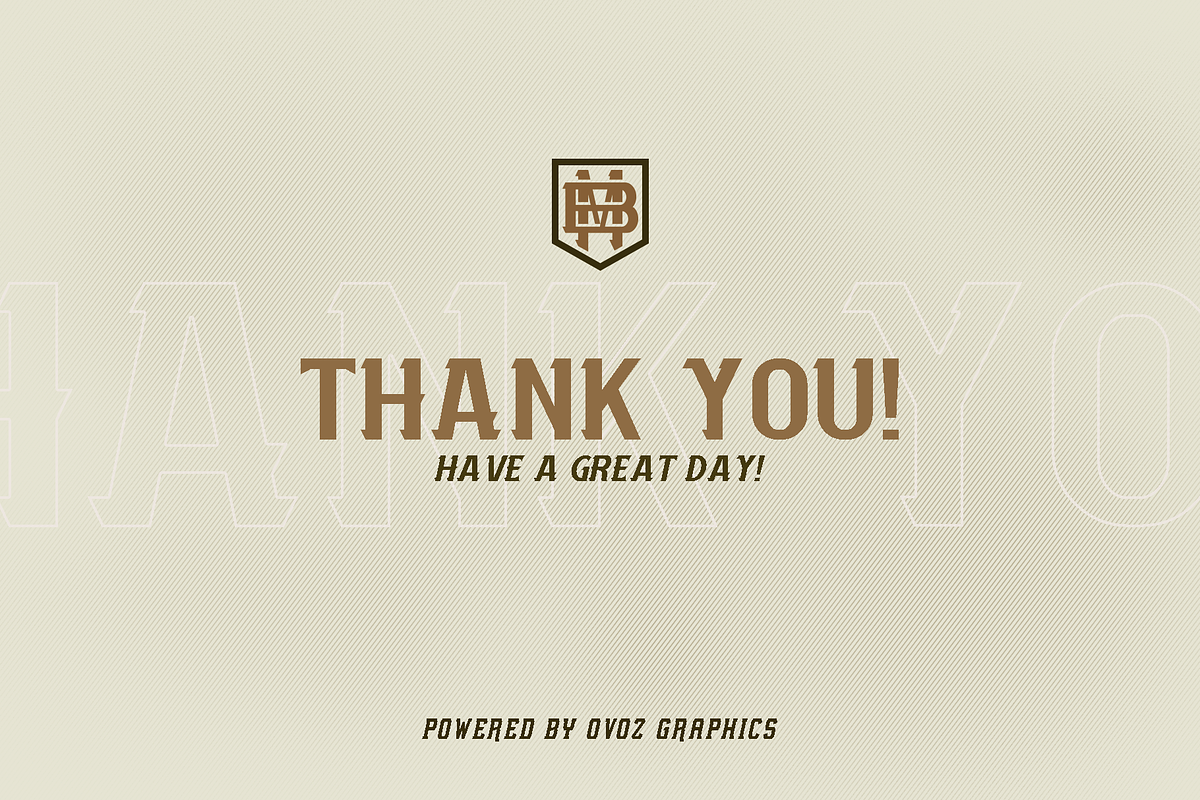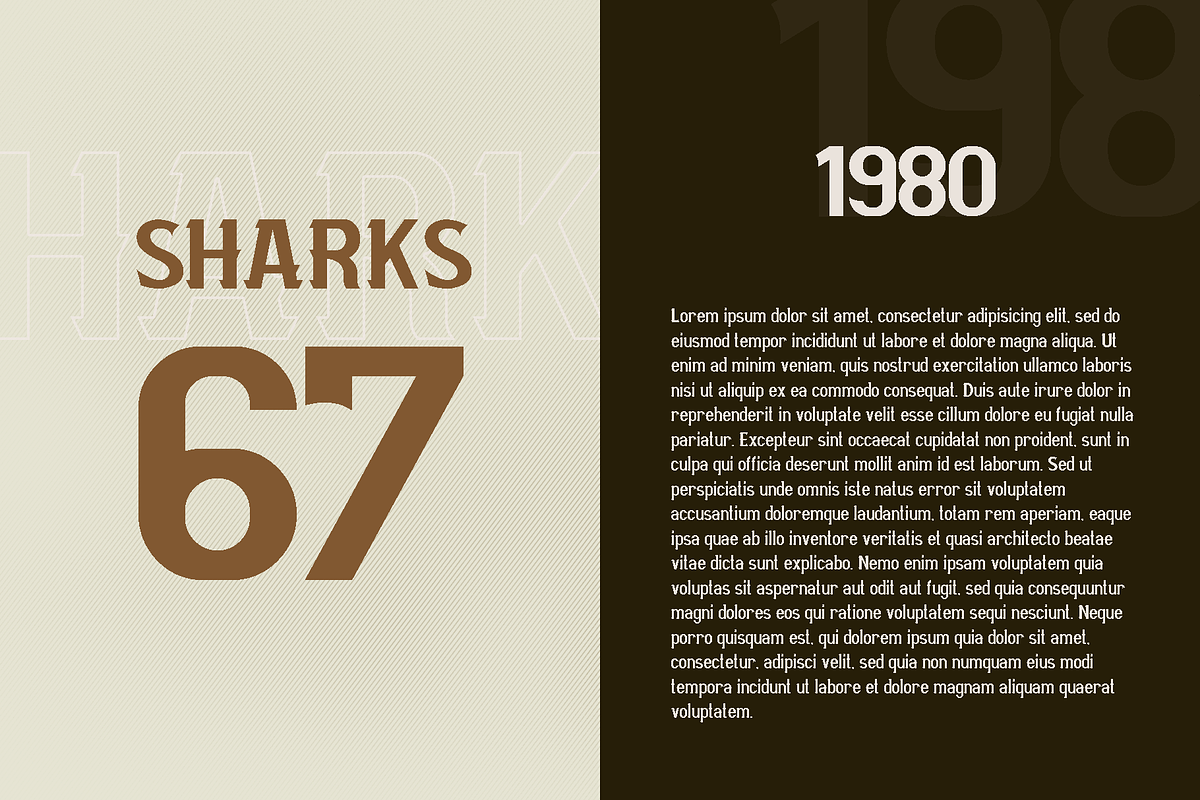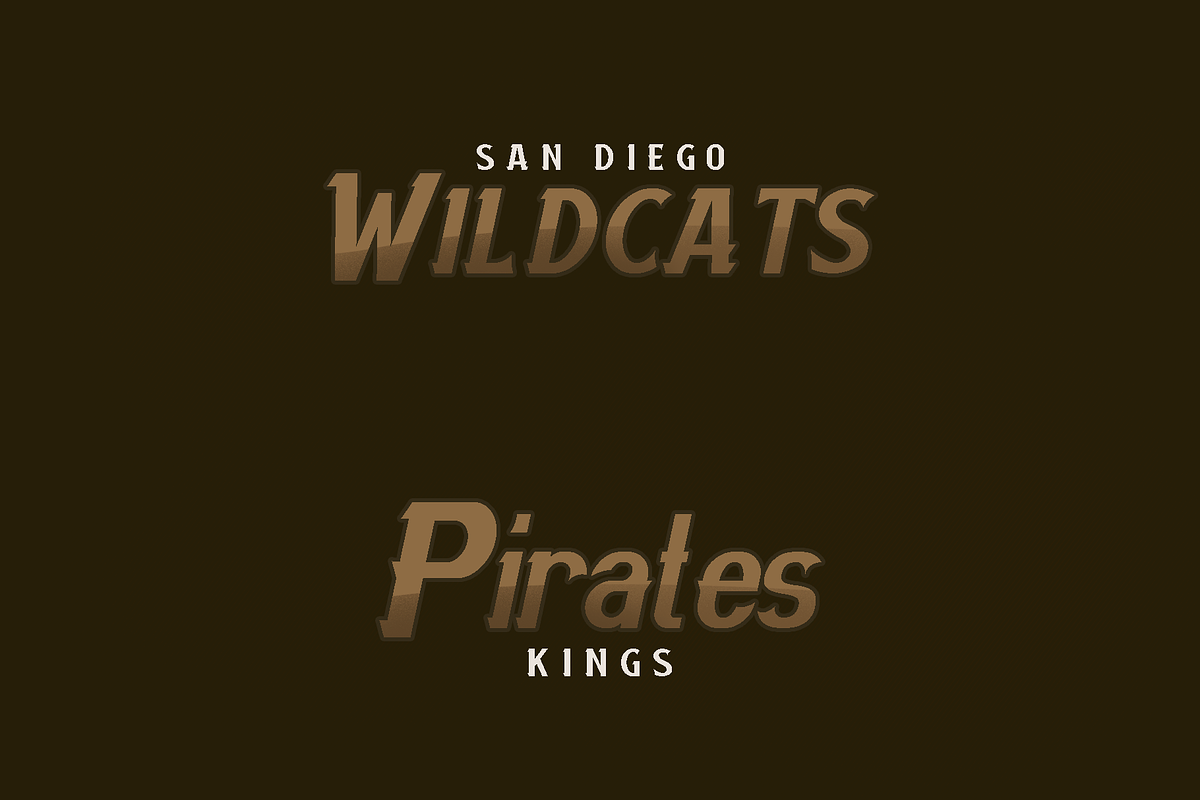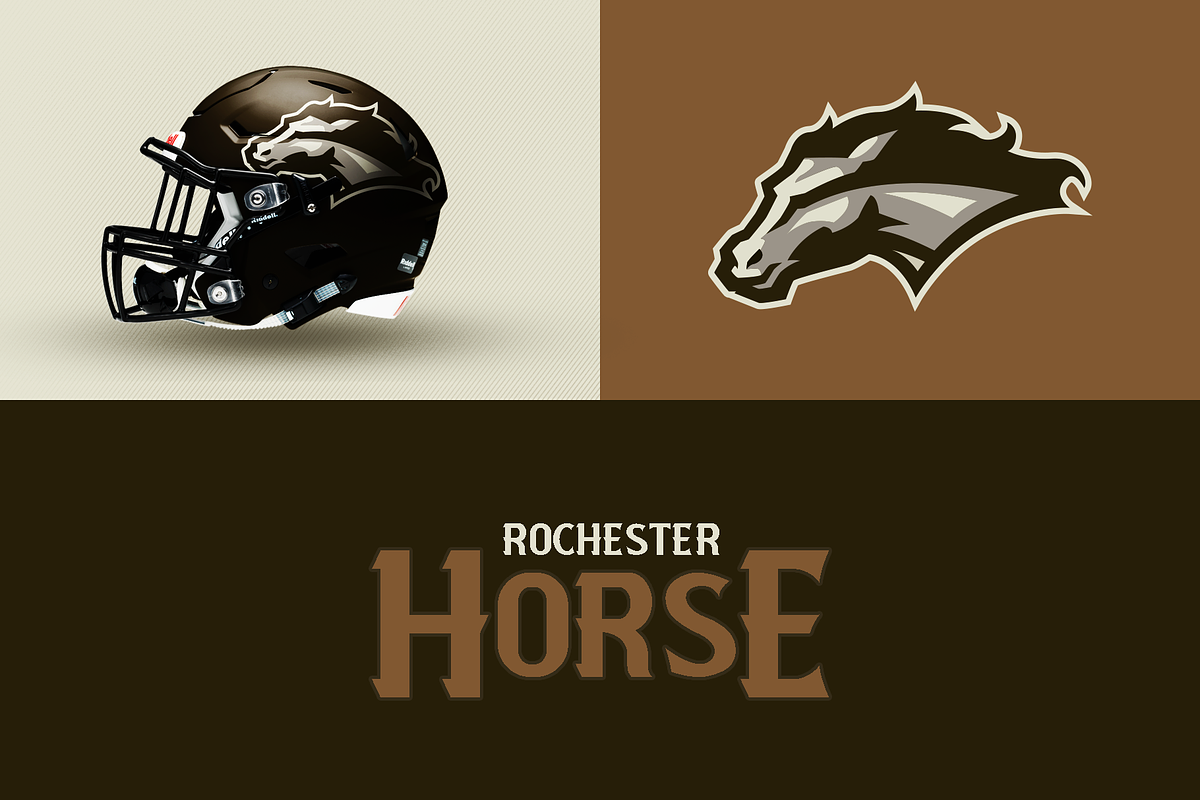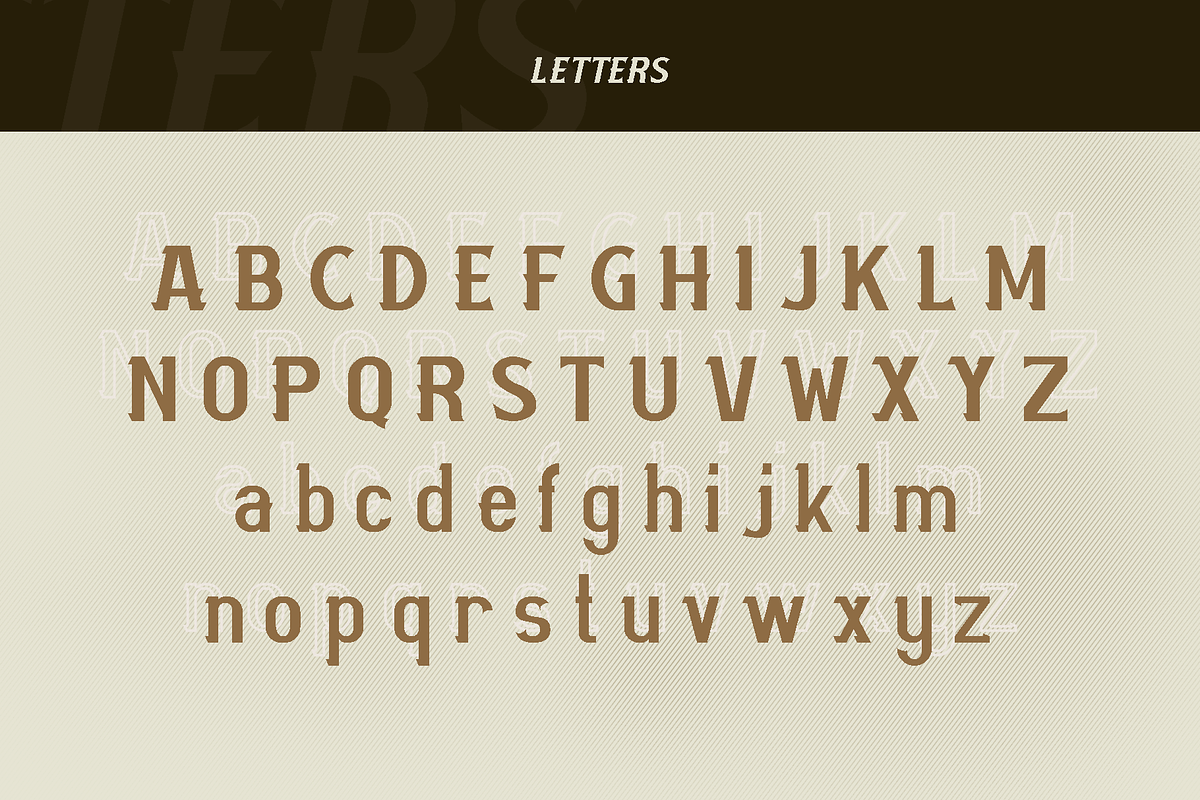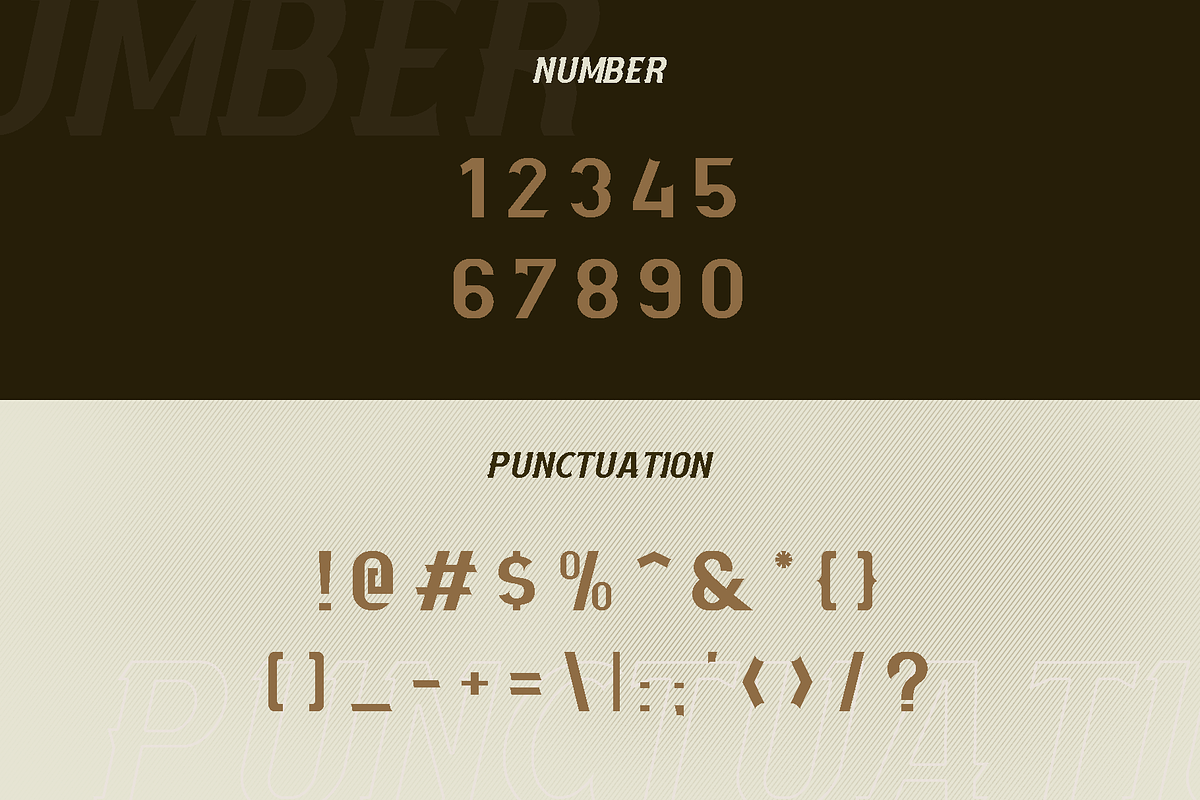
Mourbout - NFC Font Family
Introducing, MOURBOUT NFC Font Family, after a long time not uploading new item, finally Ovoz Creative start to creating new font that related to sports industries. With bold and strong look that match with sports branding, this font very suitable use for baseball, hockey, basketball, etc.
This font has more advantages, such as more unique and unusual style you can explore.
Available into uppercase, lowercase, symbol, numeral, punctuation and including so many variant of glyph. Also suitable to t-shirt, jacket, hat, or everything related about merchandise.
Mourbout - NFC Font Family by Haws.std fits naturally into Branding, posters, packaging, typography.